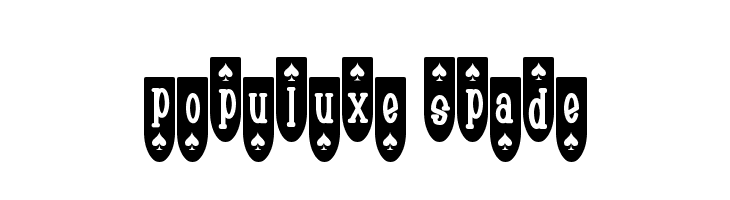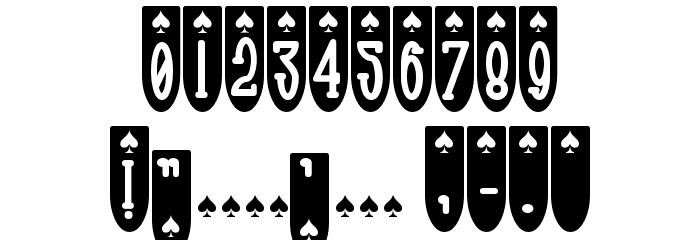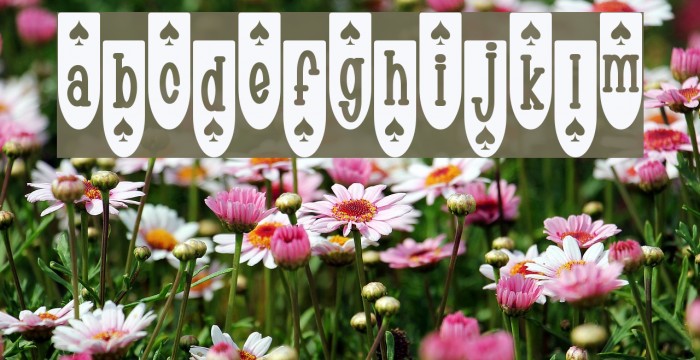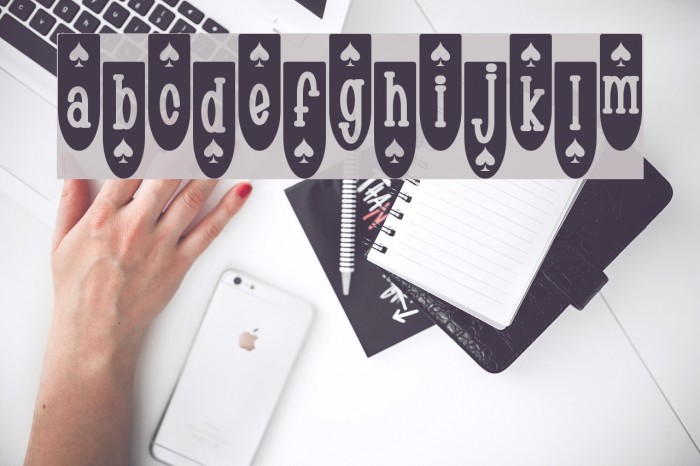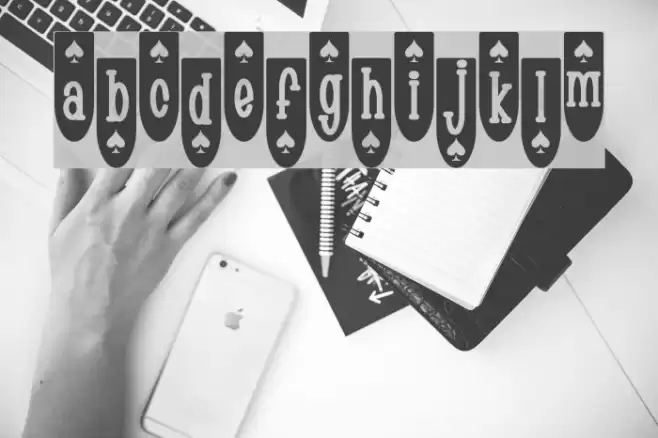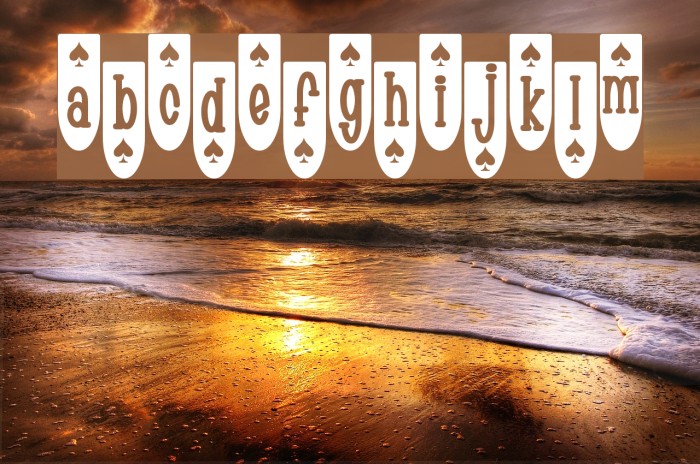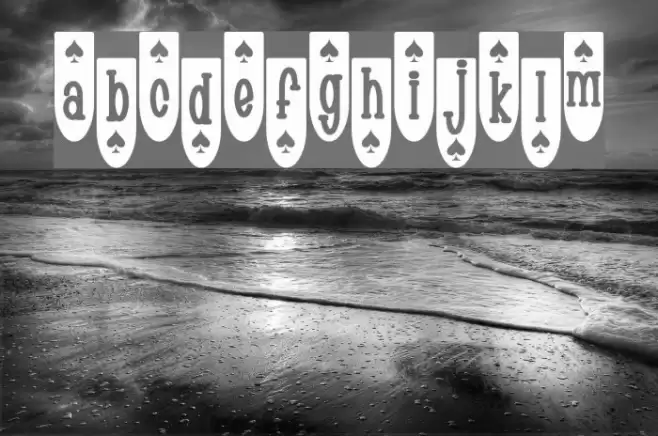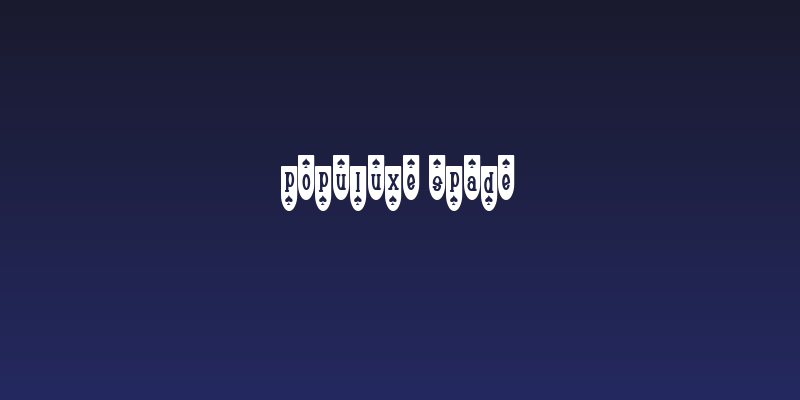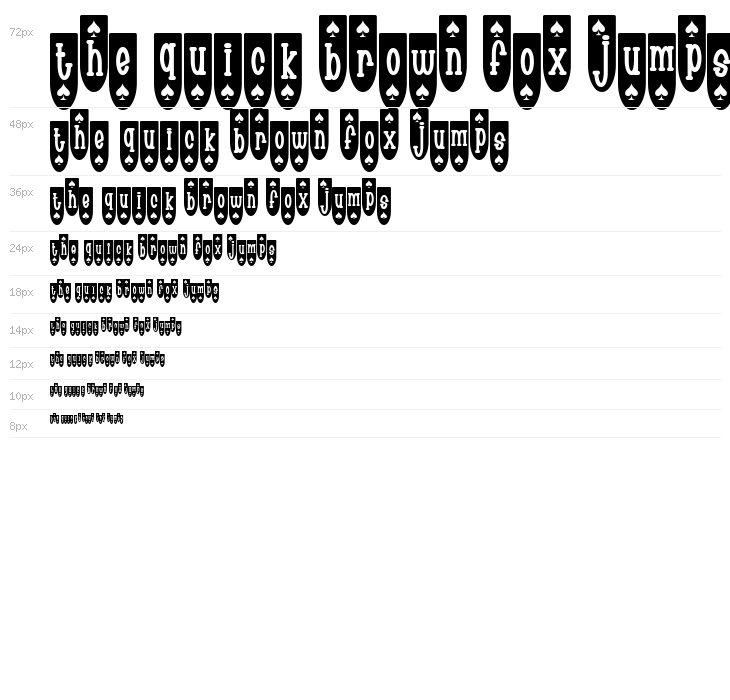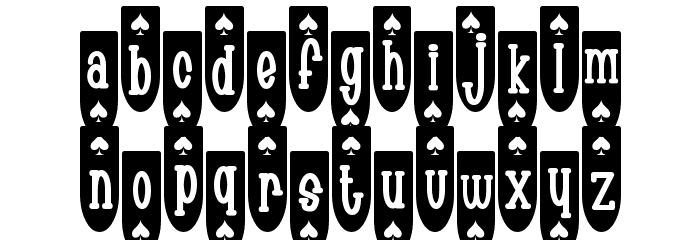
Populuxe Spade Font
Populuxe Spade Description
This font features a unique and playful design with each character enclosed in a shield-like shape, adorned with a spade symbol at the top. The letters are bold and have a distinct presence, making them stand out prominently. The style is reminiscent of vintage playing card aesthetics, combining elements of classic typography with decorative flair. The characters are evenly spaced within their enclosures, providing a consistent and cohesive look across the entire set. The numbers and special characters follow the same design principle, ensuring uniformity throughout. This font's distinctive style makes it suitable for creative and themed projects, where a touch of whimsy and nostalgia is desired.
| Overall Style | Vintage, Decorative |
| Use Case | Logos, Posters, Invitations |
| Proposed Projects | Ideal for themed event invitations, playful branding, retro posters, and creative packaging designs. |